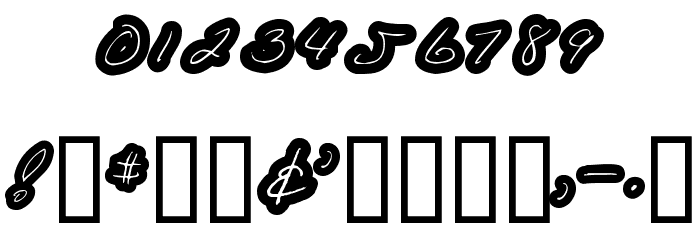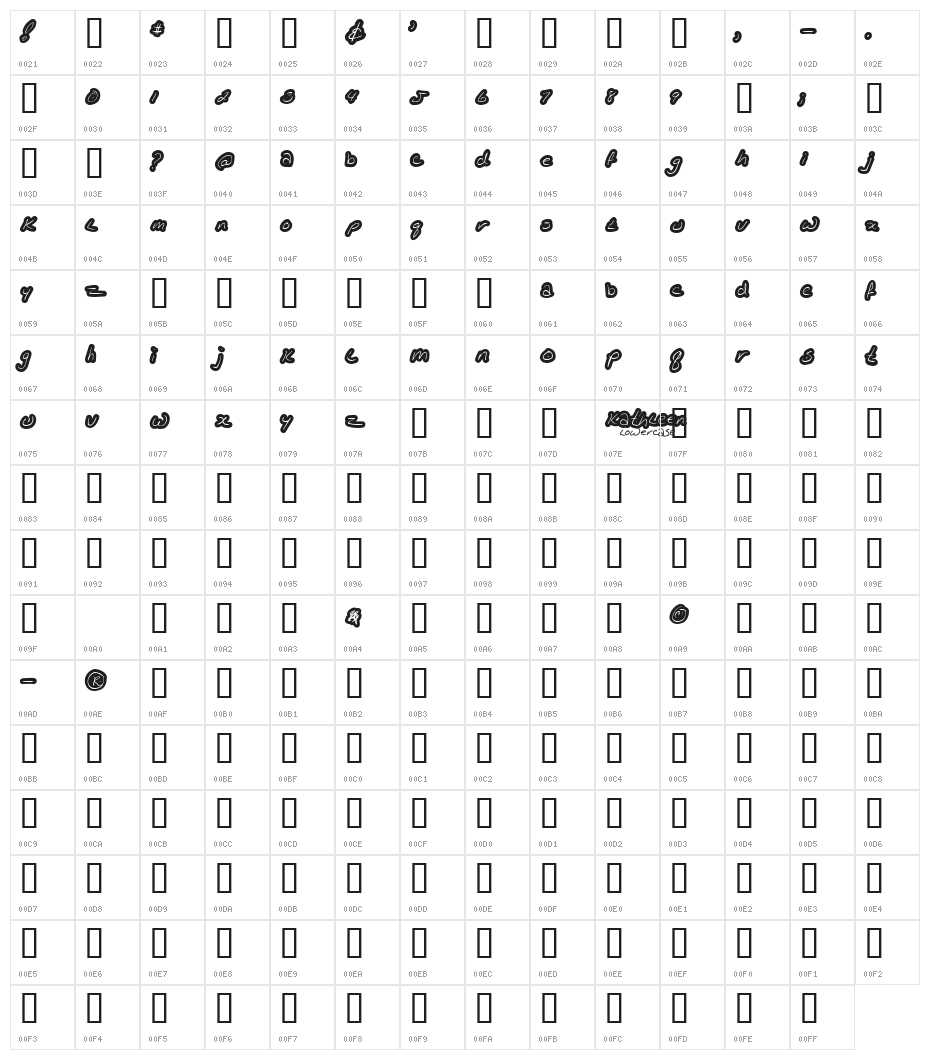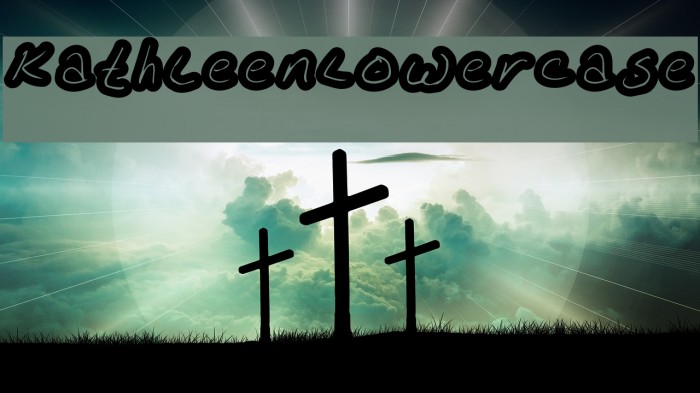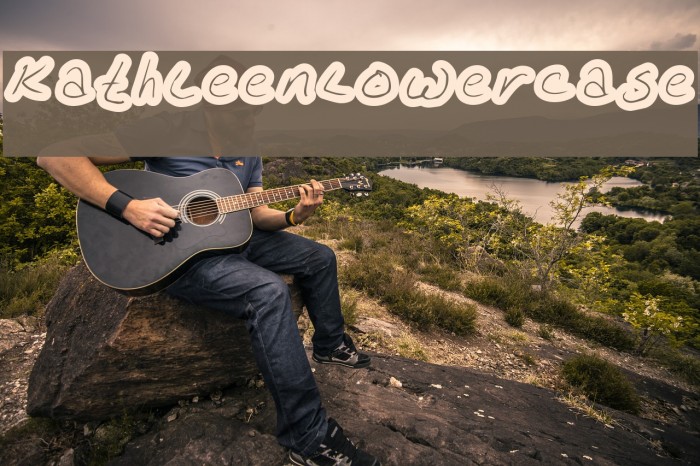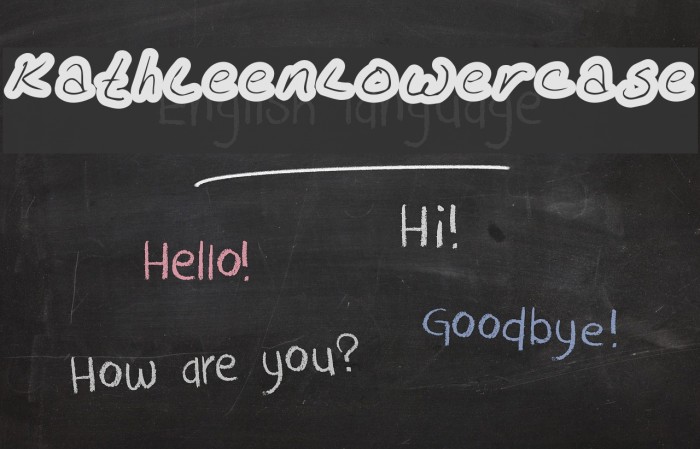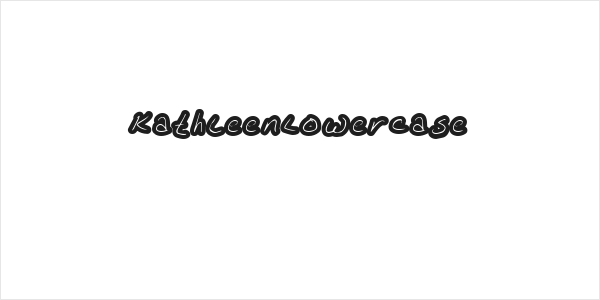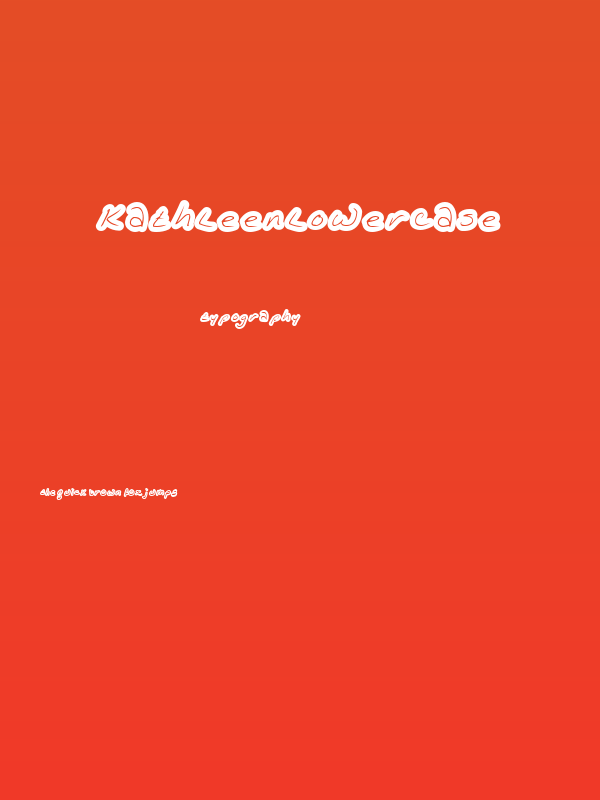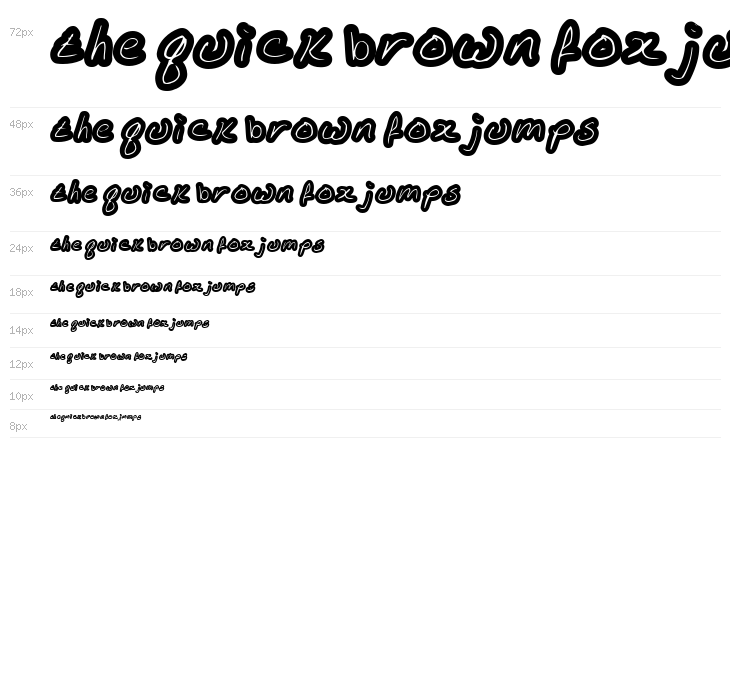
KathleenLowercase Font
KathleenLowercase Description
This playful and bold font features a handwritten style with a thick outline, giving it a cartoonish and energetic appearance. The letters are rounded and connected, creating a sense of movement and fluidity. The uppercase and lowercase characters maintain a consistent style, with a slightly exaggerated and whimsical flair. The numbers and special characters follow the same design, ensuring uniformity across all elements. This font is ideal for projects that require a fun and informal touch.
| Proposed Projects | Ideal for children's books, comic strips, playful branding, and casual invitations. |